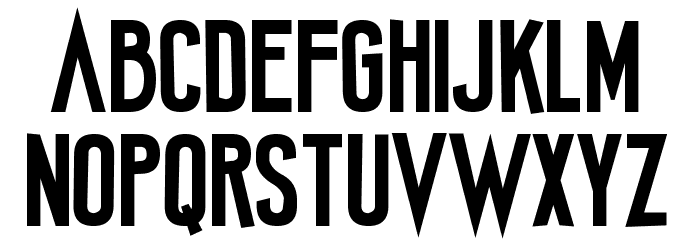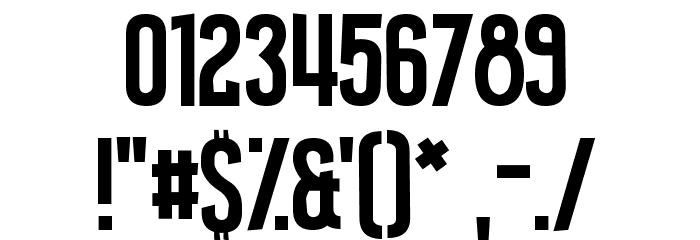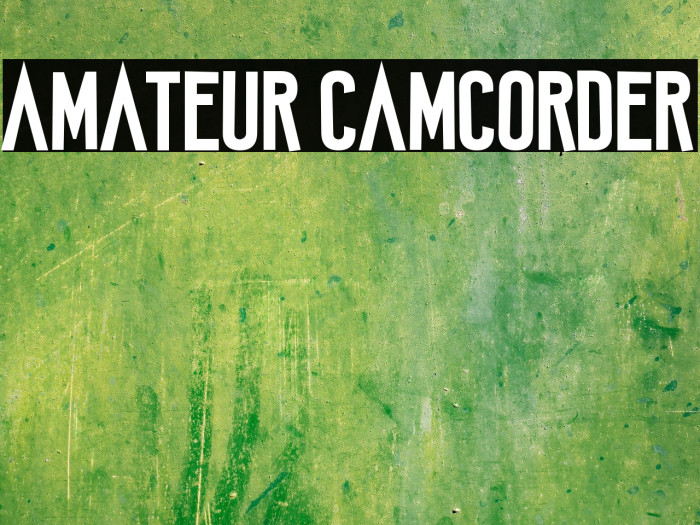
Amateur Camcorder Font
This font features a bold and impactful design with a strong geometric structure. The characters are tall and narrow, giving them a condensed appearance. The uppercase letters are particularly striking, with sharp angles and clean lines that convey a sense of modernity and strength. The numerals and special characters maintain the same boldness, ensuring consistency across all elements. The overall style is both contemporary and versatile, making it suitable for a variety of design applications. The font's high contrast between thick and thin strokes adds to its dynamic and eye-catching nature.
A bold, condensed font with a modern geometric style.
- Proposed Projects: Ideal for headlines, posters, branding, and advertising where a strong visual impact is needed.